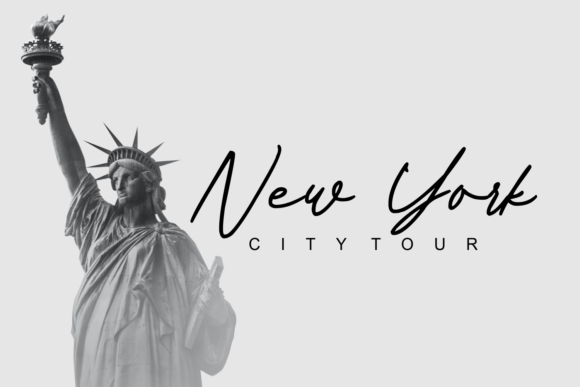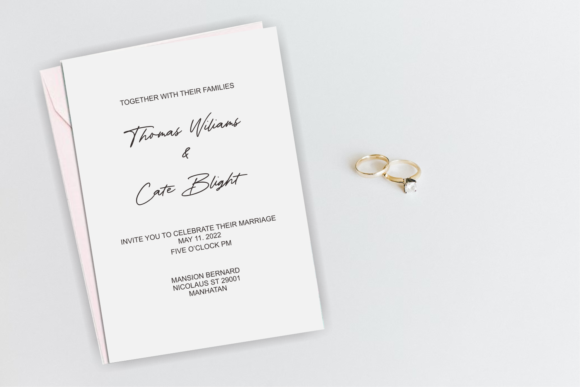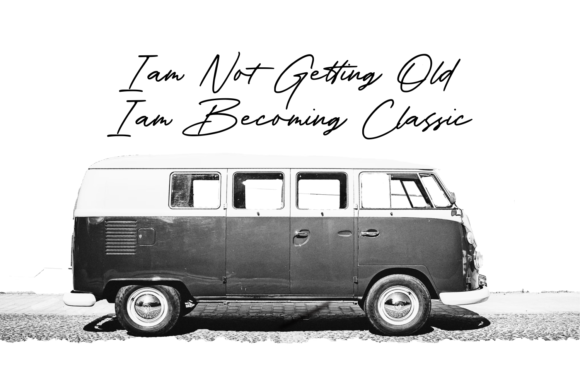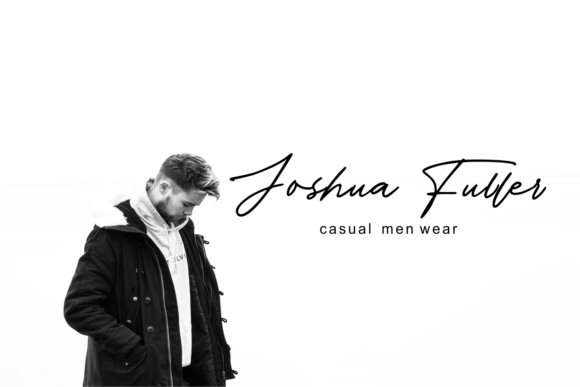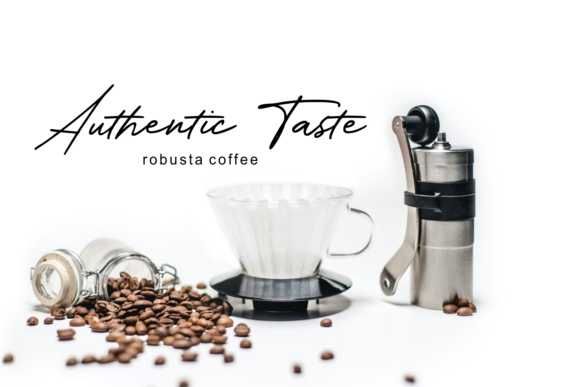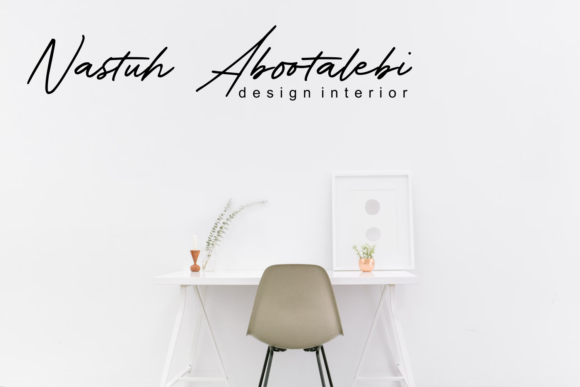
Introduction to Hilliamoon Font
Remember that moment when you’re browsing through your social media feed, and a post catches your eye because of its unique and elegant handwriting style? That’s the magic of the Hilliamoon Font. As a designer, you know the importance of standing out in a crowded digital landscape, and the Hilliamoon Font is here to help you achieve that.
Whether you’re working on a creative project, designing a logo, or creating a beautiful invitation, the Hilliamoon Font is the perfect design resource to add a touch of personality and style. Its high-quality, modern handwritten script is sure to make your project look natural, stylish, and beautiful. And the best part? It’s available for free download, making it an accessible and valuable addition to any designer’s toolkit.
Key Features of Hilliamoon Font
- High-quality design with a unique, creative touch, perfect for any design project.
Honest Review: Hilliamoon Font
One of the standout features of the Hilliamoon Font is its high quality. The letters are crisp and well-defined, making it perfect for a wide range of creative projects.
- Some users may find the font’s style too quirky or unconventional for certain designs
Overall, I’m impressed with the Hilliamoon Font and would definitely recommend it to designers looking for a high-quality, unique font for their creative project. It’s a great design resource that’s available for free, making it a valuable addition to any designer’s toolkit.
The Hilliamoon Font is commonly used in creative projects, such as logo designs, social media graphics, and marketing materials. Its unique style and high quality make it an ideal choice for designers seeking a distinctive look. By following these steps, you can unlock the full potential of the Hilliamoon Font and take your design projects to the next level.